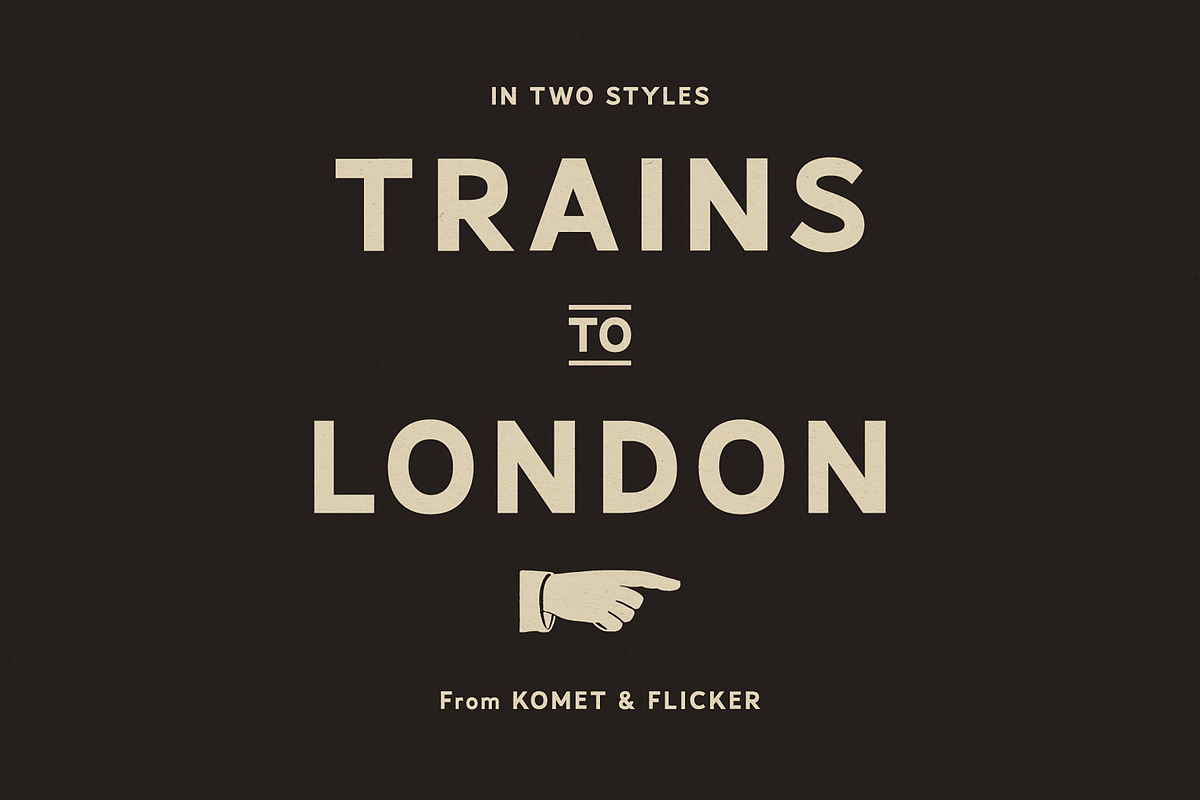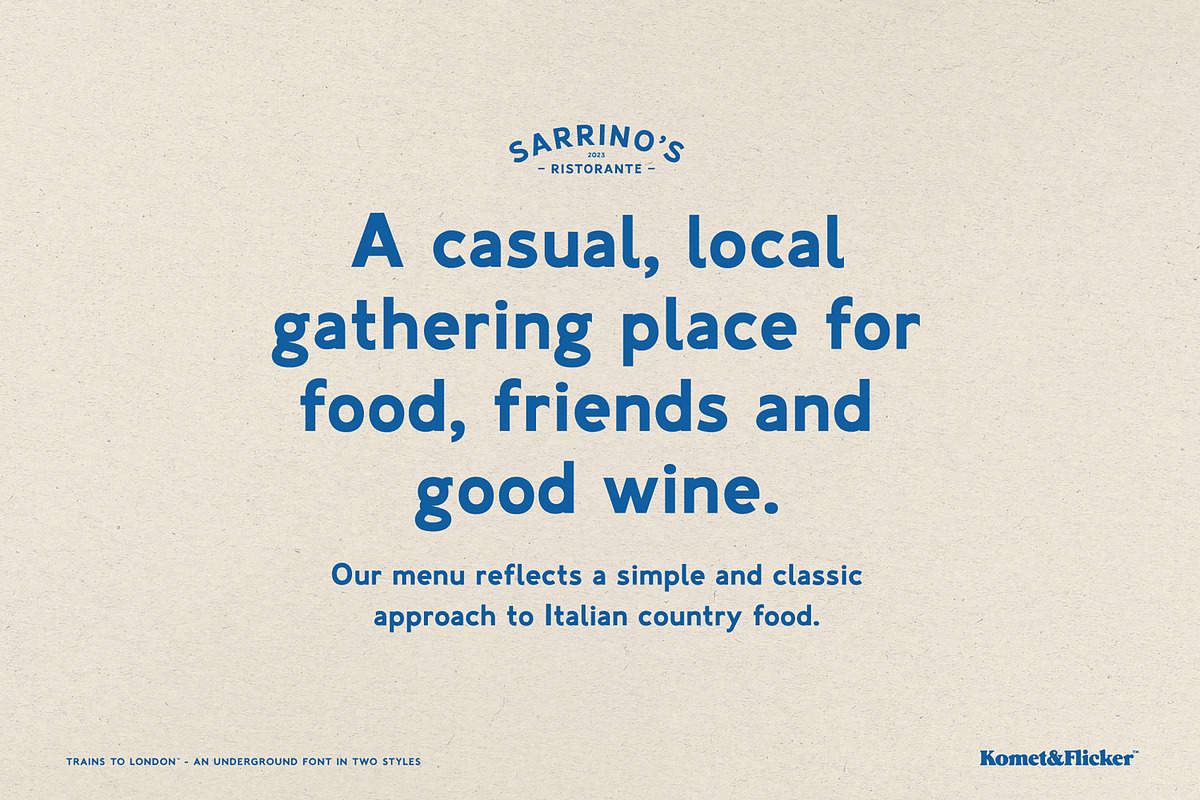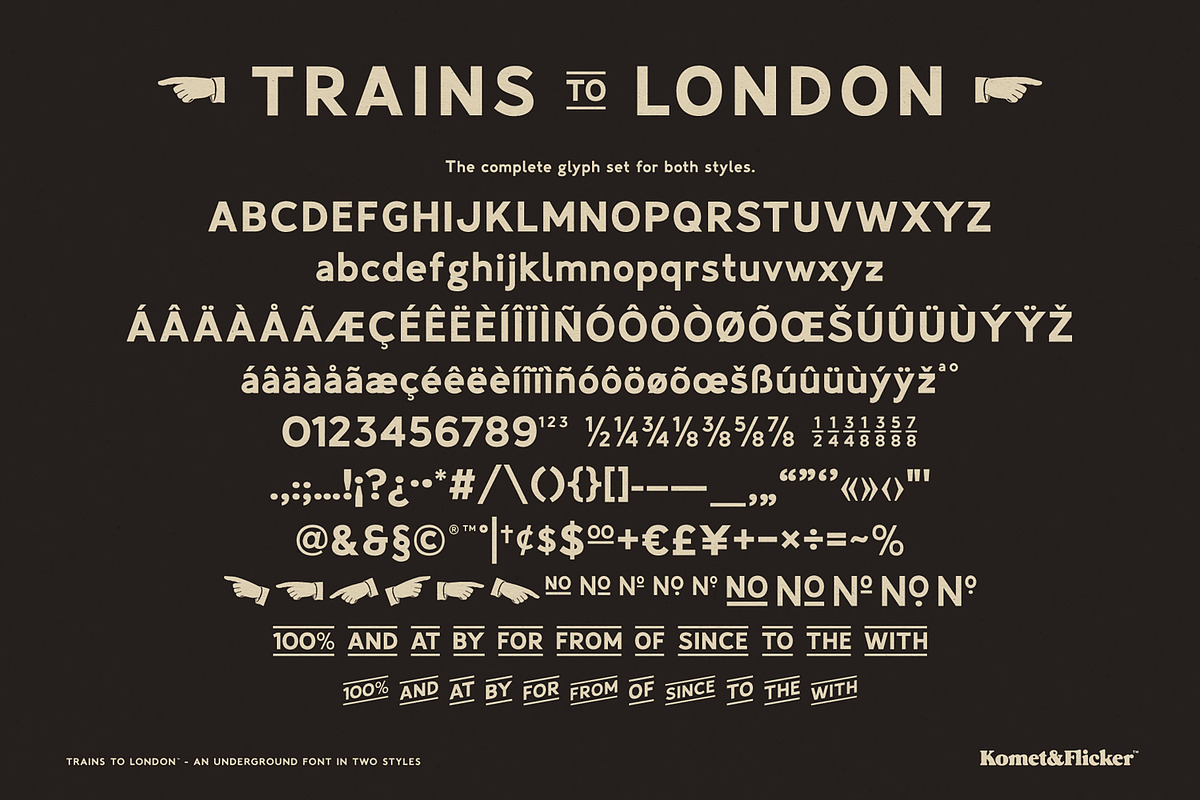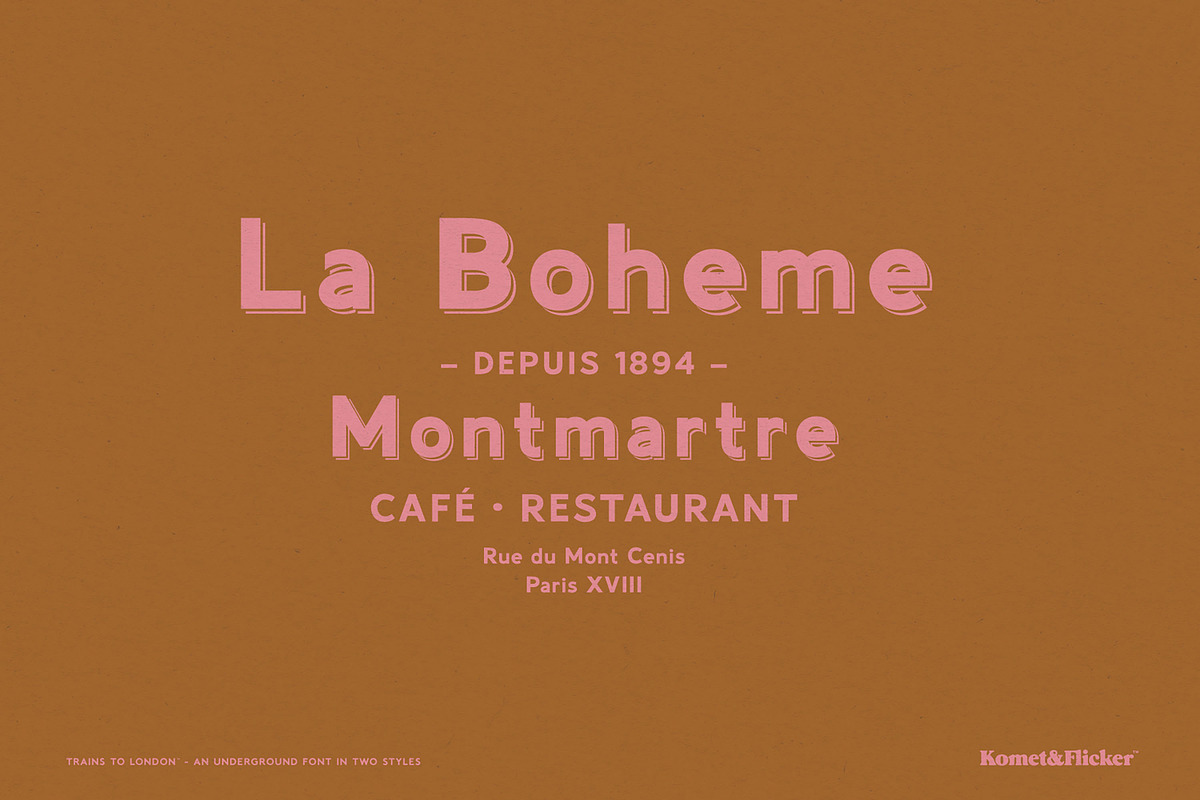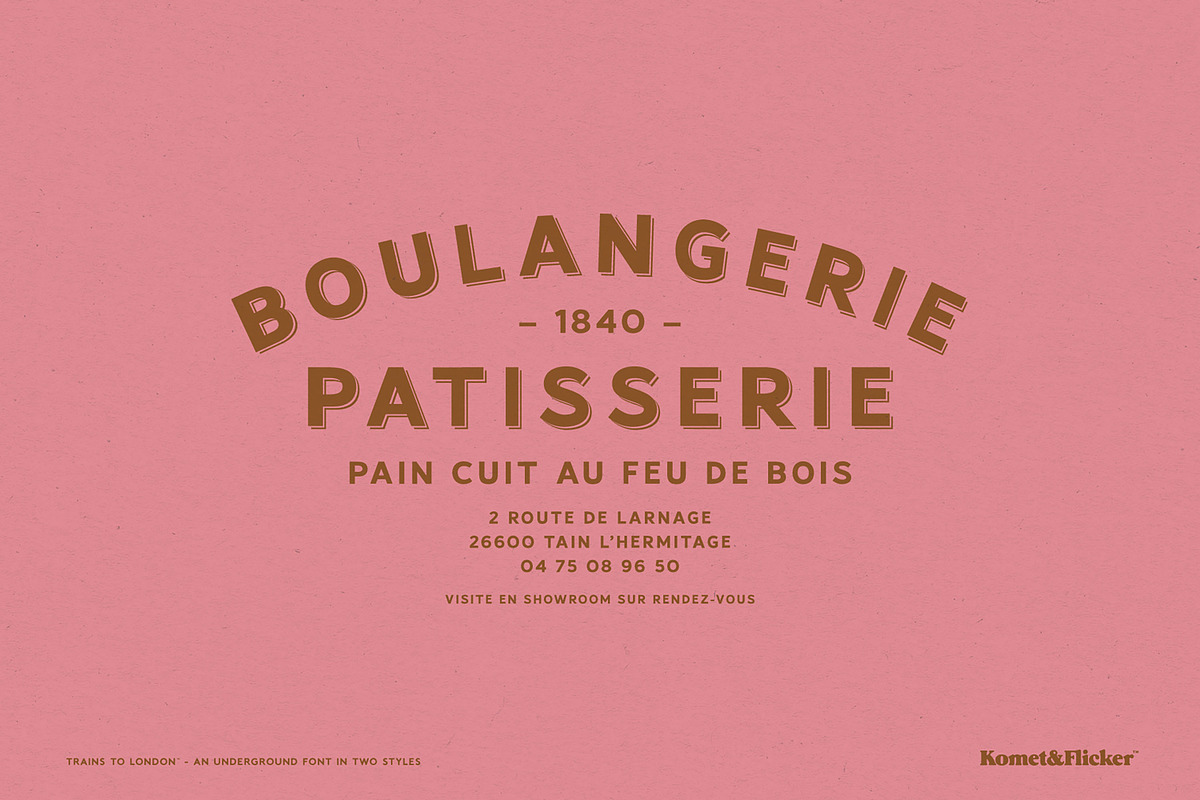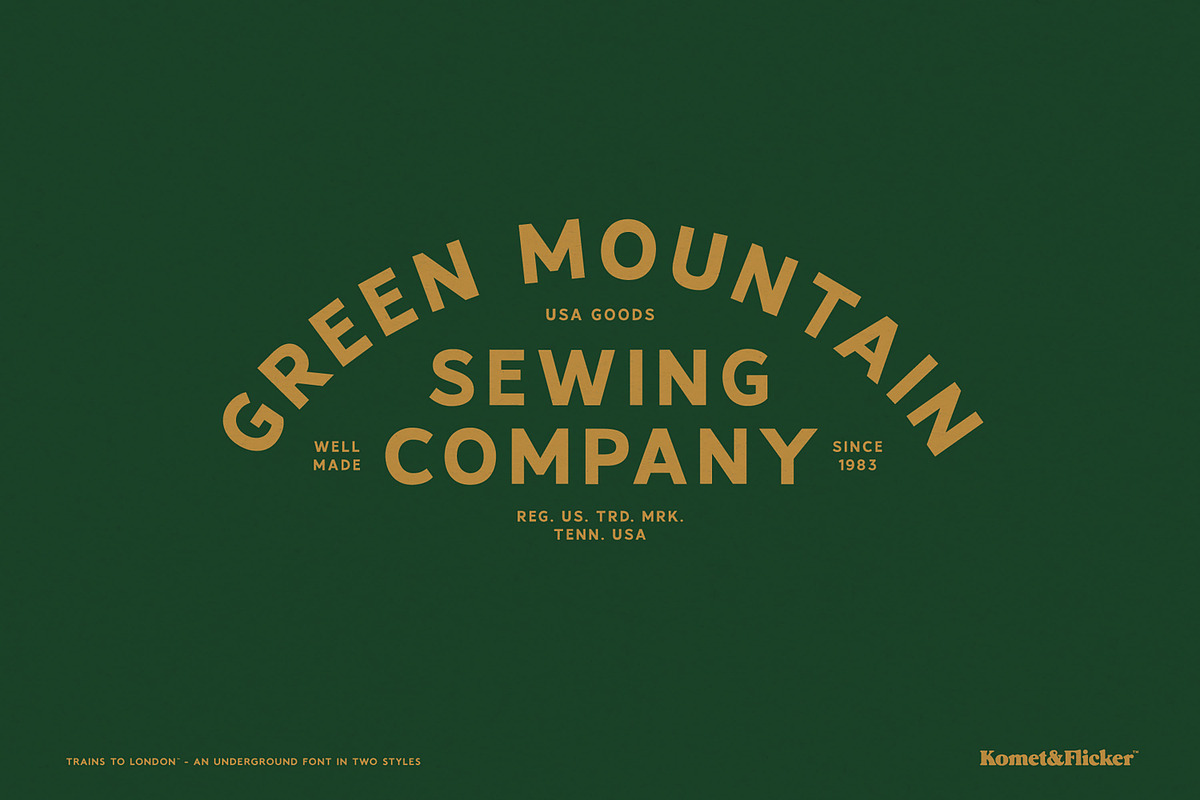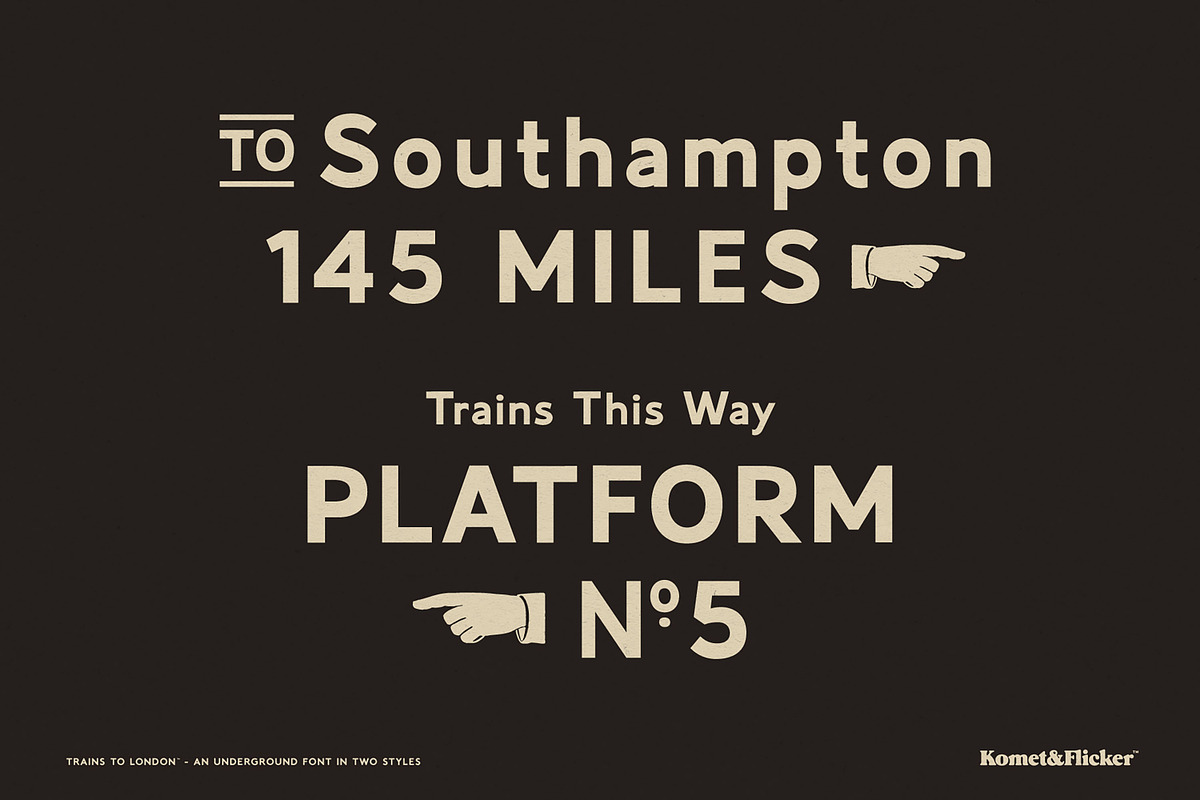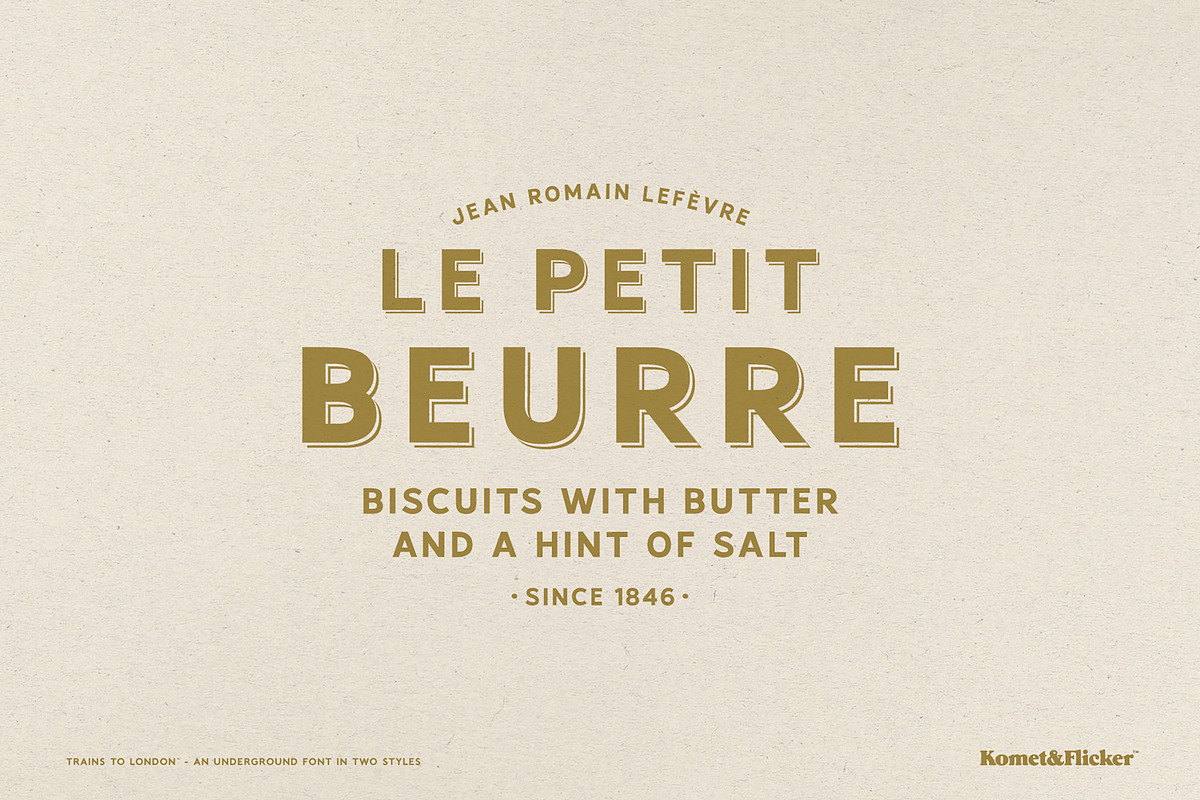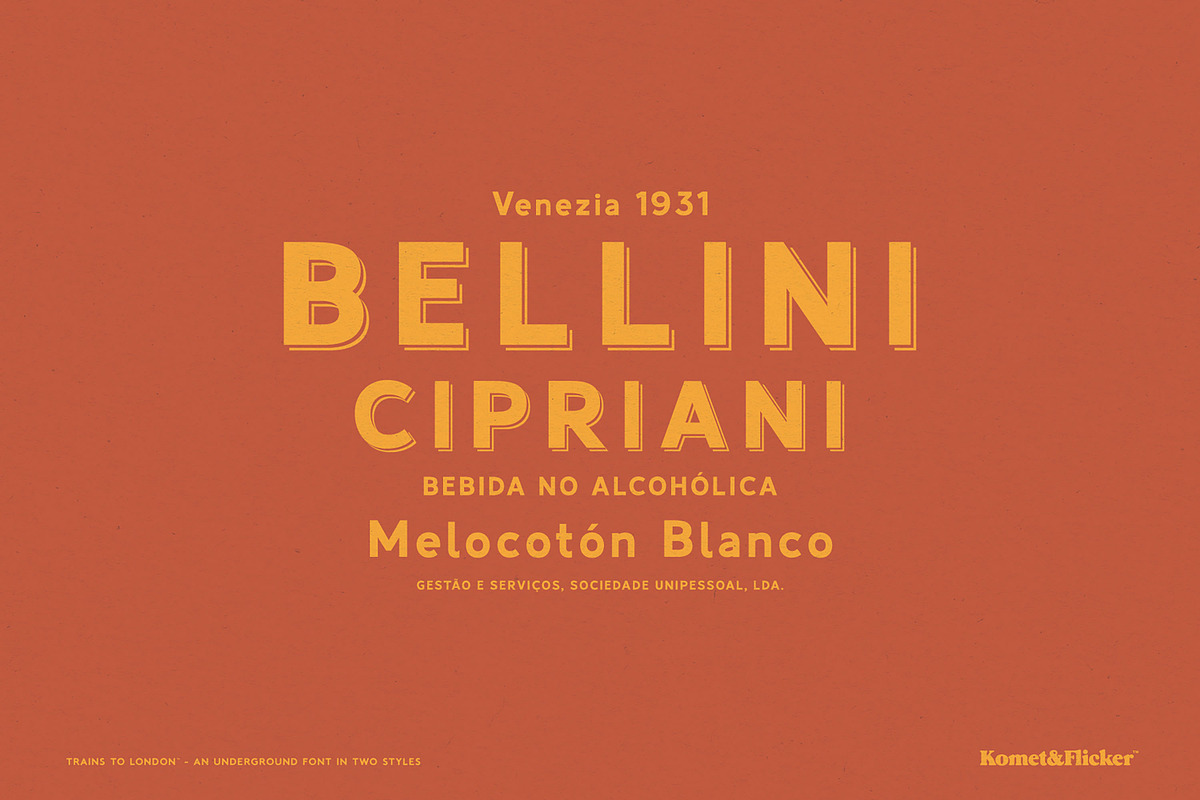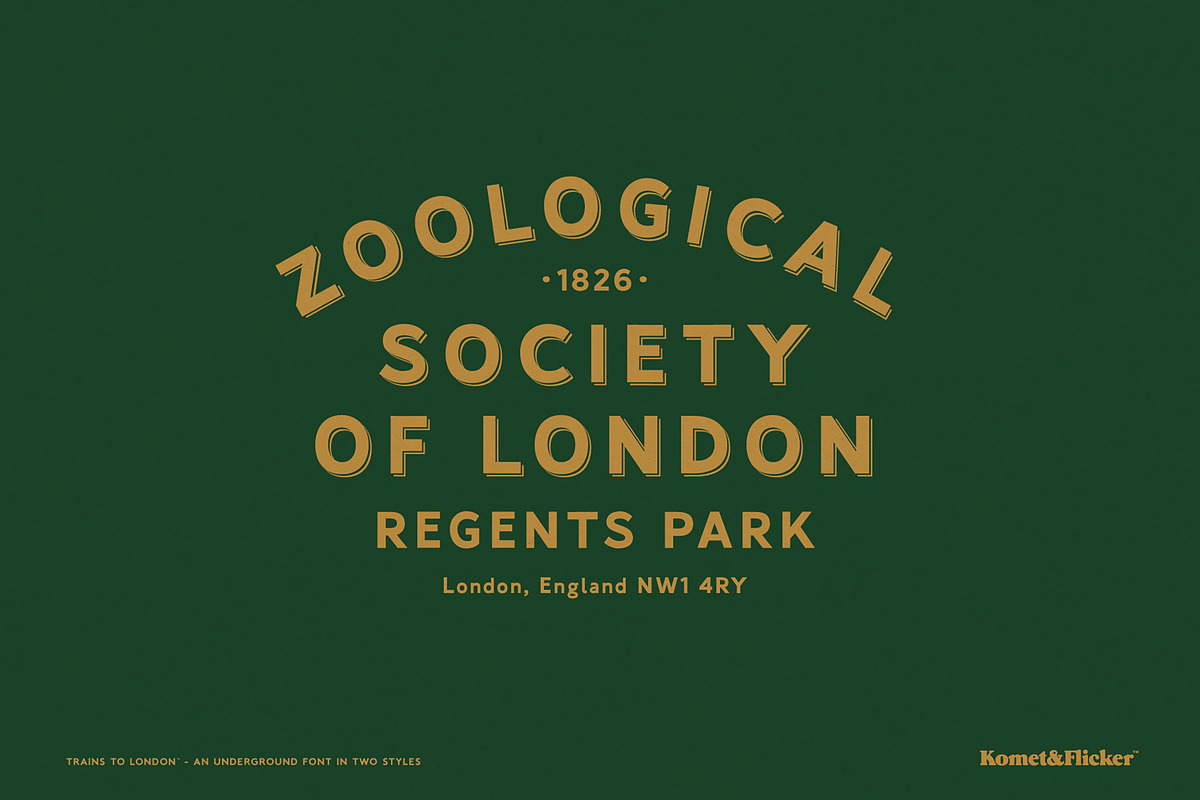
Trains to London
Trains to London is a sans serif typeface inspired by the iconic vintage signage of London’s underground. This font comes in two complementary styles: a clean sans serif and a bold sans serif shadow, giving you the flexibility to layer depth and dimension into any design.
Also included are several custom glyphs and dingbats plus a set of 11 connecting word glyphs in two styles (like AND, THE, WITH) designed to integrate with your text for added flow.
Whether you're designing posters, branding, or editorial layouts with a nostalgic city-transport feel, Trains to London delivers character straight from the platform.
THIS FONT COMES IN TWO STYLES
Trains to London Sans
Trains to London Sans Shadow
THIS FONT INCLUDES
Full A-Z upper and lowercase latin character set
Select European specific characters
Two styles of pre-made common fractions
Numbers, punctuation, and select symbols
6 directional pointing hand dingbats
5 abbreviated number symbols in two styles
Set of 11 custom connecting word glyphs in two styles